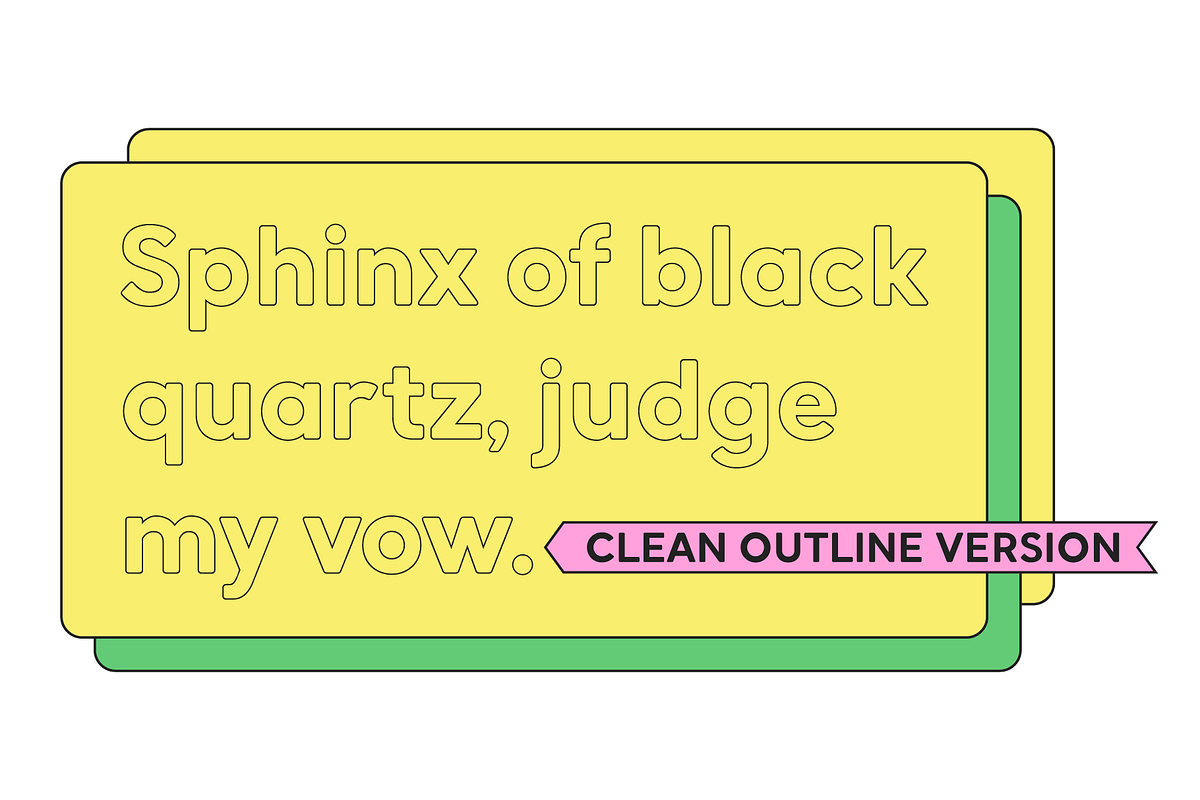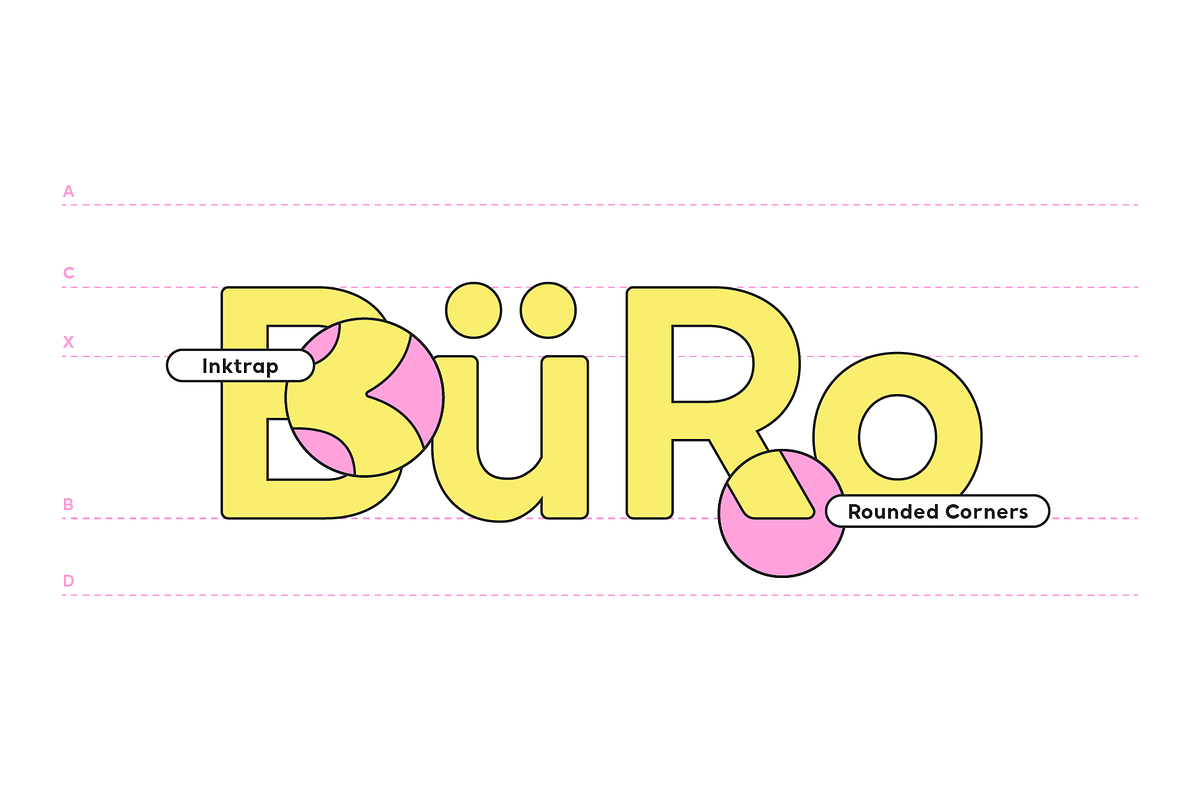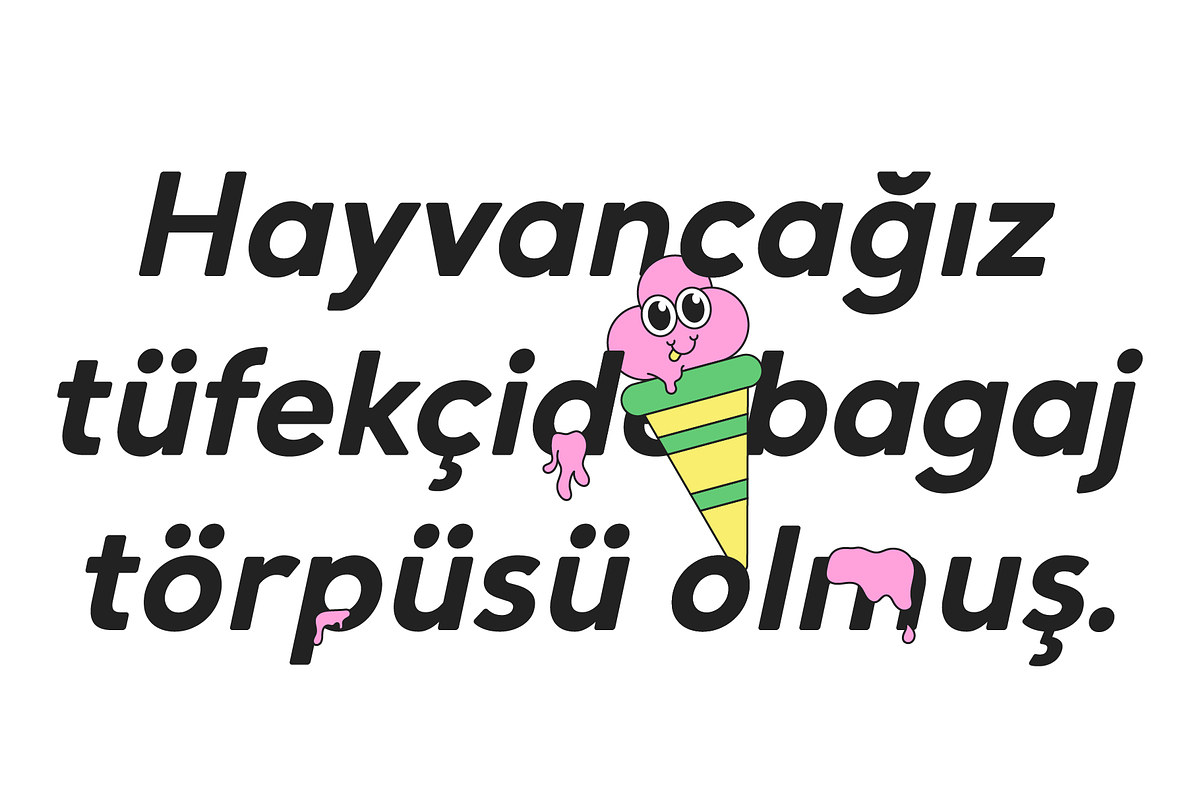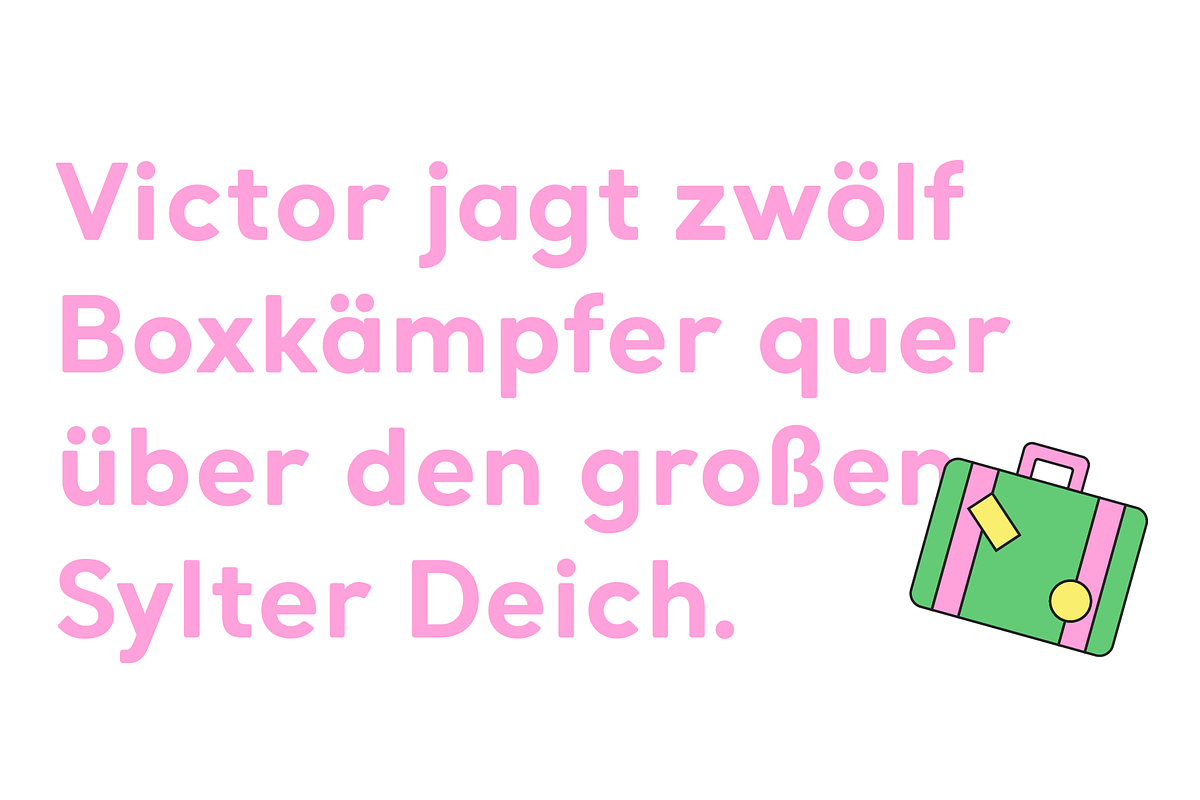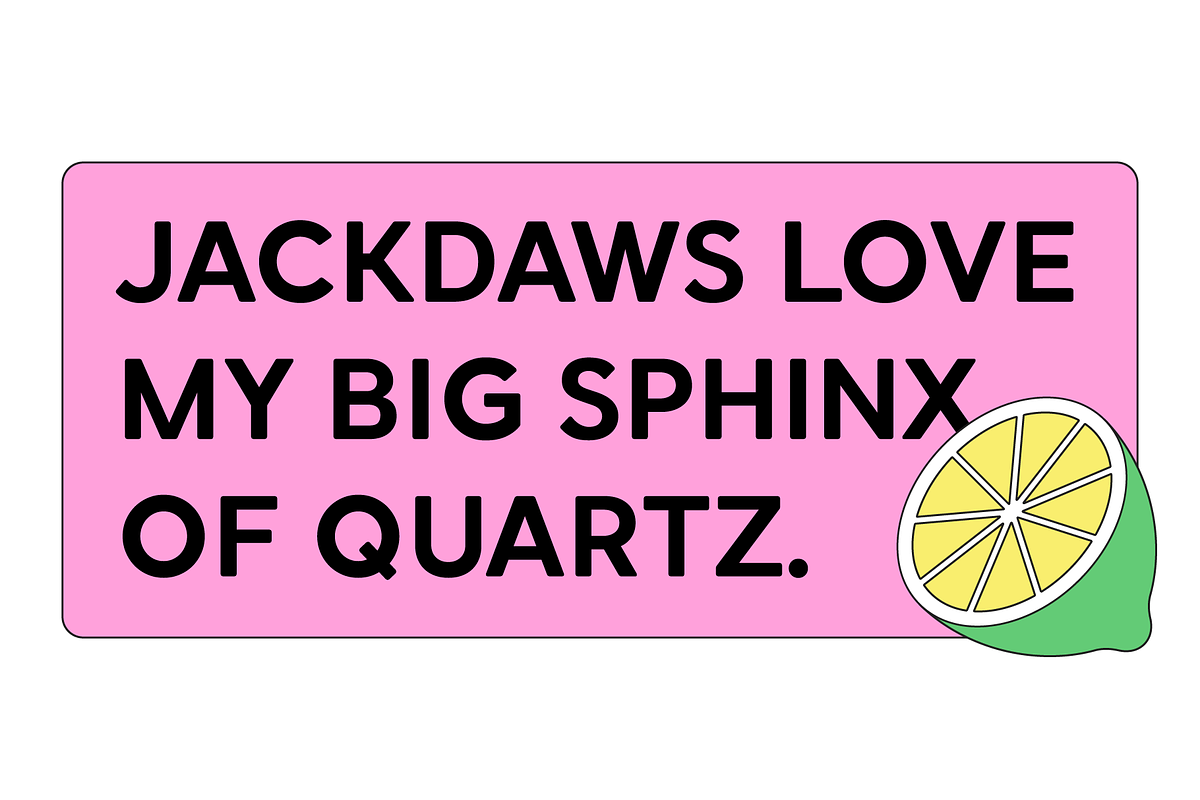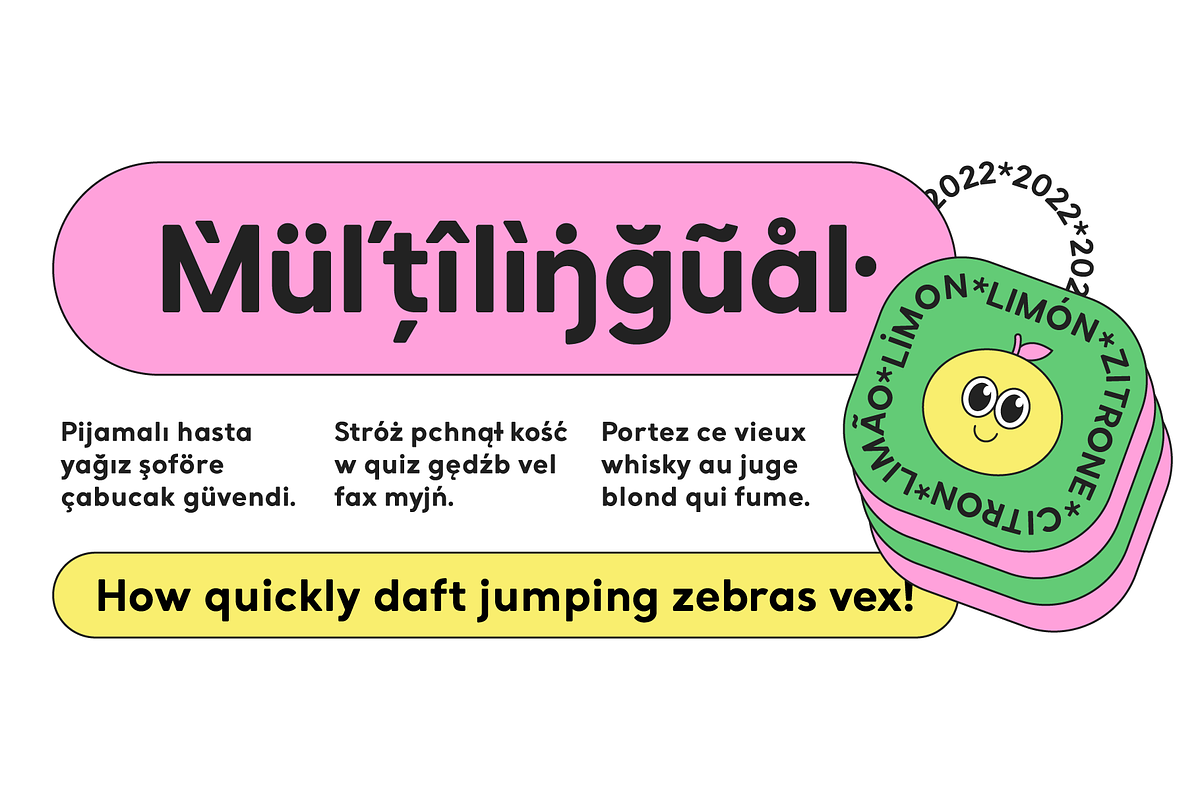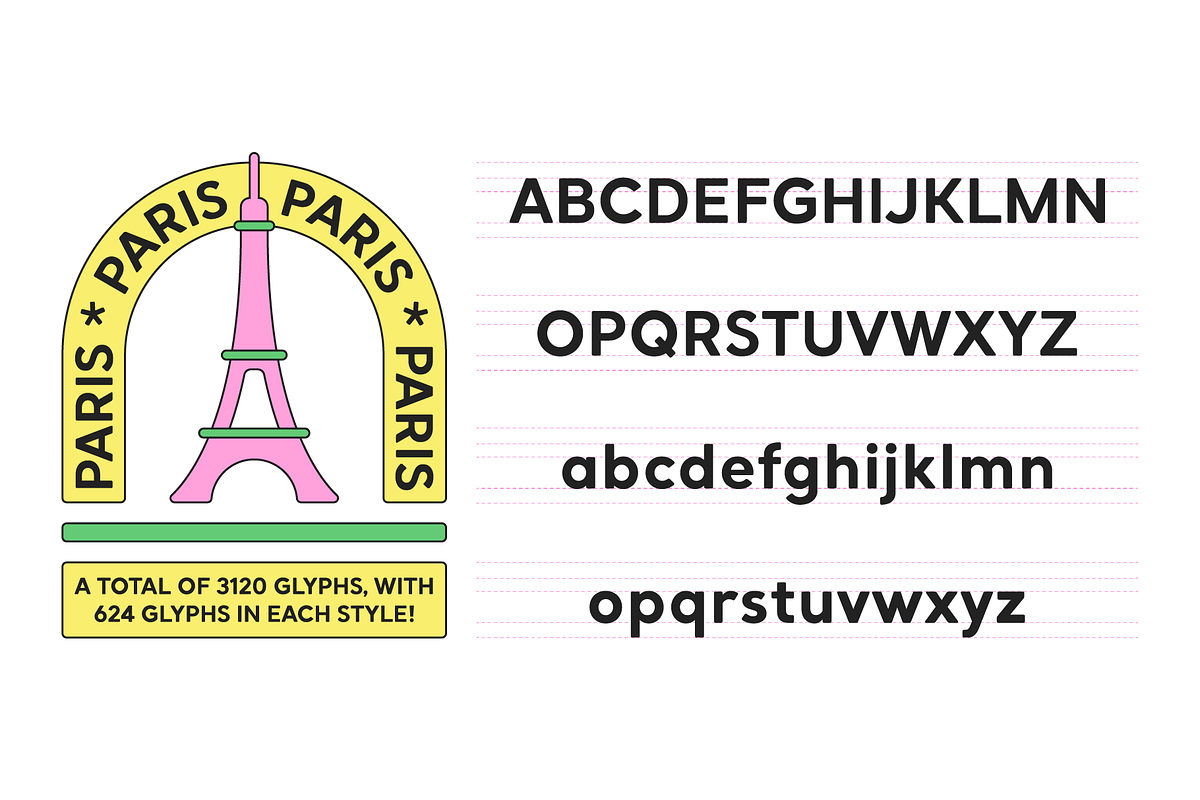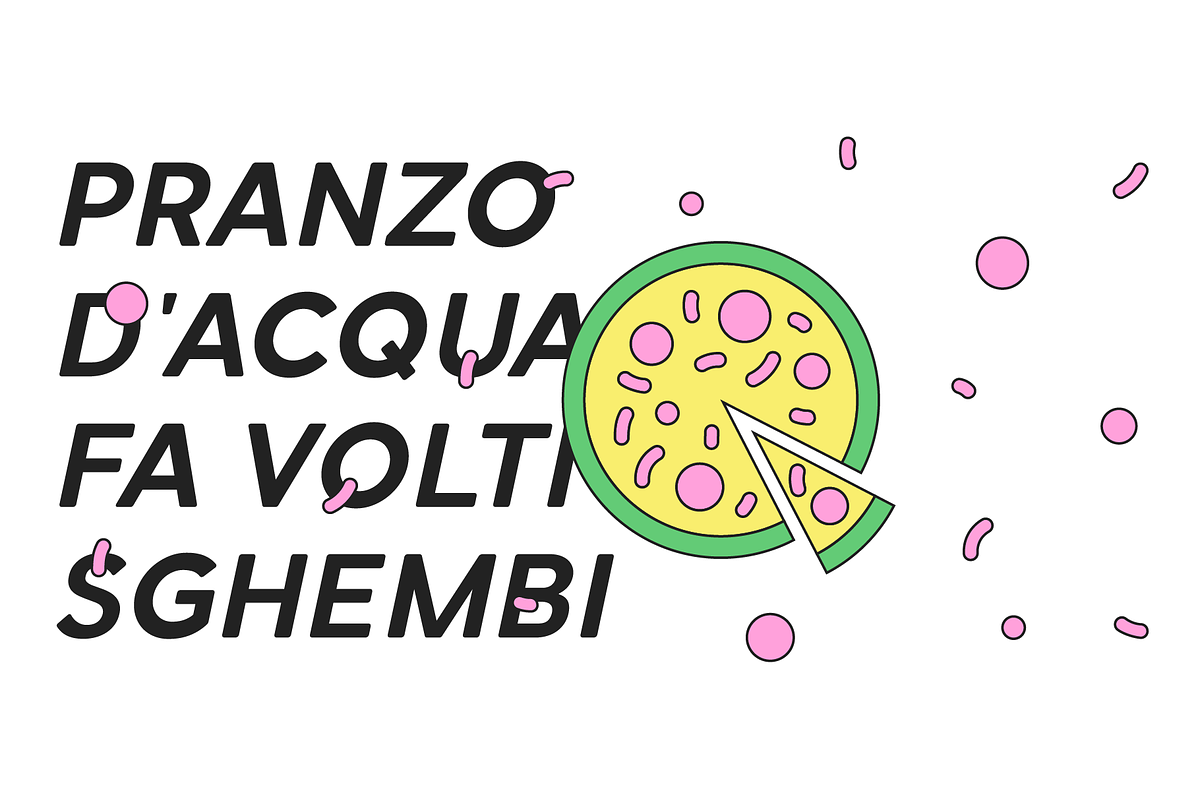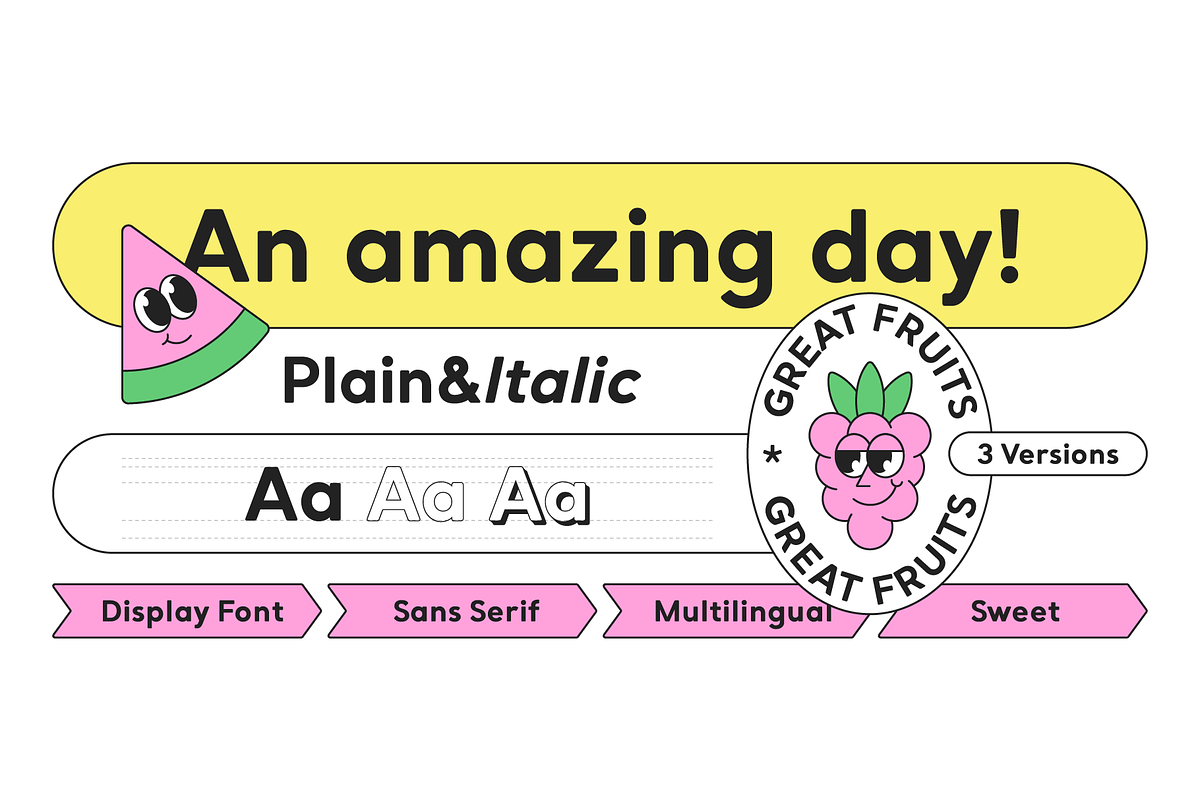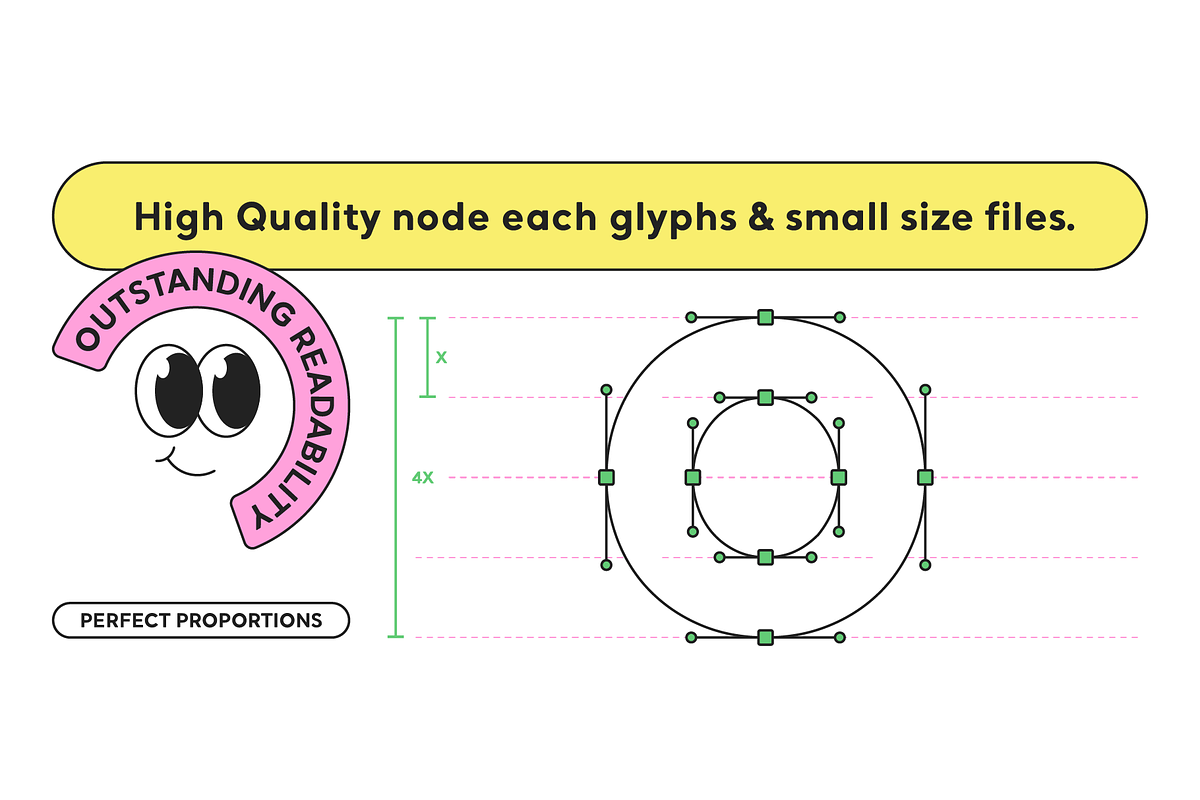
SK Gunaydin Font
SK Günaydın is a display sans serif font family designed by Salih Kızılkaya in 2022. Thanks to its high contrast ratio, it offers high readability in all the media you need.
It contains a total of 3120 glyphs, 624 glyphs in each font, and offers full support for languages using the Latin alphabet. This font family, which includes 3 different styles, classic, outline and shadow, and 5 different fonts, contains all the characters you will need in designs.